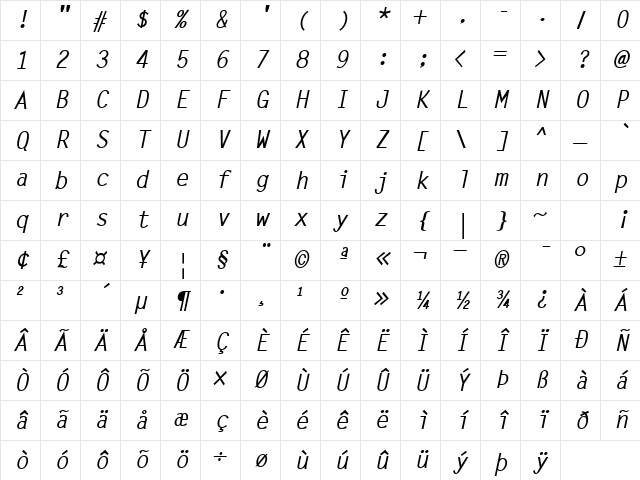
EvenLetter Bold Slanted Free Font
EvenLetter Bold Slanted
Style: Bold Slanted
Design Context for EvenLetter
EvenLetter is a composed and adaptable typeface that performs quietly and consistently across a wide range of design contexts. The slanted form adds forward momentum and visual energy. Its bold stroke weight gives it real presence on the page.
Pro Tip: Use EvenLetter for emphasis, pull quotes, and subheadings where its slanted energy can add rhythm to the layout.